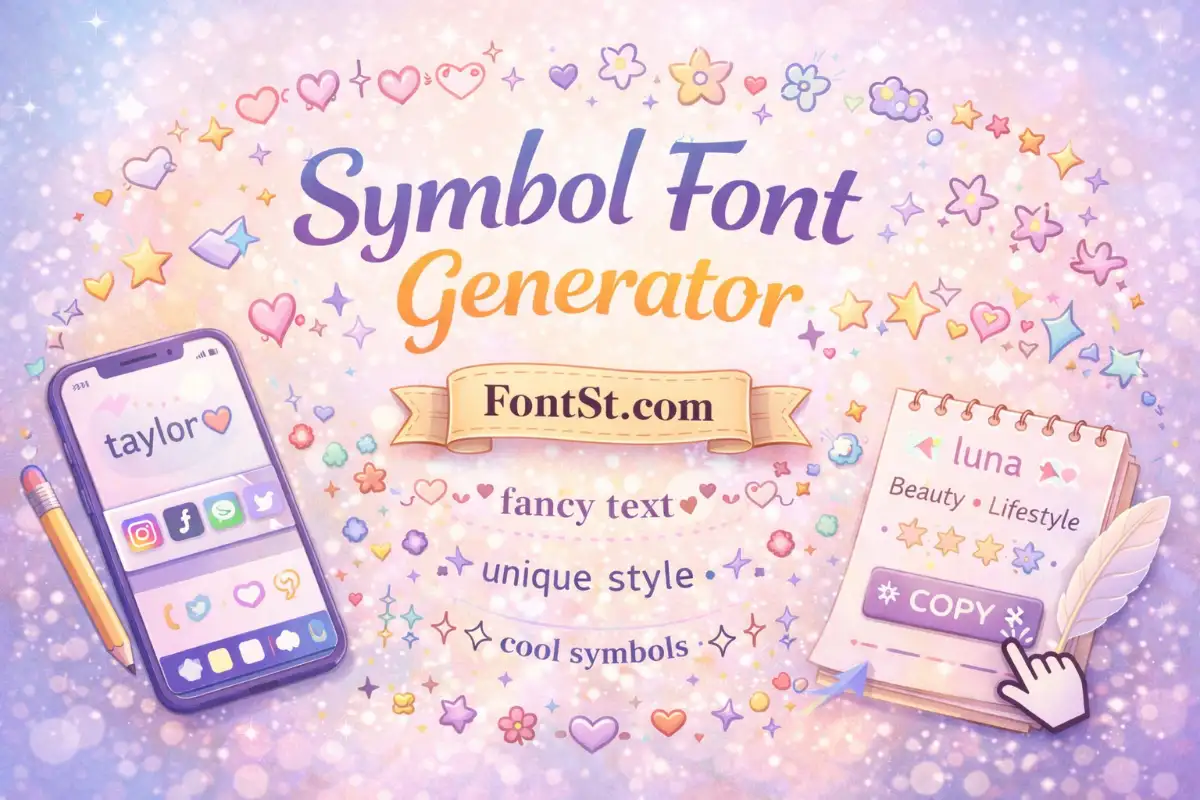
Symbols can turn plain text into something instantly more expressive—cute, aesthetic, or “cool” for bios, captions, usernames, and status lines. This Symbol Font Generator helps you create copy and paste fancy text using stylish Unicode symbols and pretty text styles that work across Instagram, Discord, WhatsApp, and Facebook.
✦ Symbol Font Generator ✦
Symbol Typeface: What It Means In Copy & Paste Text
In traditional typography, a symbol typeface can mean a font file that contains icon-like characters. In the copy & paste world, it usually means Unicode symbols and stylish letter variants that behave like “fonts” inside apps.
So when users search for a symbol typeface, they often want:
• cute and decorative symbols (stars, hearts, dots, frames),
• cool text symbols to separate ideas,
• a quick way to turn normal text into fancy writing to copy and paste.
Cute Font Symbol: The Fastest Way To Make Text Look Adorable
A cute font symbol is usually a small accent that frames your name or line—without making it unreadable.
Popular cute accents:
• Hearts:
• Sparkles:
• Soft vibes: 🫧
• Dividers:
Best practice: use 1–2 symbol types consistently. Cute looks “premium” when it’s clean.
Cool Text Symbols: The Ones People Actually Use
When people search cool text symbols, they usually mean symbols that feel:
• clean (for minimal profiles),
• edgy (for gamer/alt vibes),
• or aesthetic (for soft, modern bios).
Here are common “cool” symbol sets:
Minimal
• | +
Aesthetic
Edgy / Gamer
Framing
• 【 】 『 』 ⟦ ⟧
Copy And Paste Fancy Text: What Works Best On Social Apps
Fancy text should still be readable. The best approach is:
• one fancy line for the headline,
• normal text for the details,
• symbols only as accents.
Great places to use it:
• Instagram display name + bio line 1
• Discord nickname + status
• WhatsApp “About”
• Facebook intro line or post title
How To Use FontSt’s Symbol Text Generator
1. Type your phrase (name, short quote, title, status).
2. Browse symbol styles and pick one that matches your vibe (cute, minimal, edgy).
3. Tap to copy.
4. Paste into your app.
Quick Test Inputs
Use these to check if a style supports everything you need:
• yourname ✦
• ABC abc 123
• discord status •
• link in bio →
If the style breaks into squares (□), pick a simpler symbol set like or .
Fancy Writing To Copy And Paste (Without Looking Spammy)
If your goal is “fancy writing,” keep it short and structured:
• ✧ your name ✧
• • creator • editor •
• ☾ calm vibes ☾
Avoid stacking too many rare symbols in one line. One “frame” + one “divider” is usually enough.
Copy And Paste Pretty Fonts: A Simple “2-Line Bio” Formula
A reliable format for pretty profiles:
• Line 1 (pretty font + symbols): ✦ Name ✦
• Line 2 (plain text): niche + schedule + one emoji
Example:
• ✦ Luna ✦
• beauty • lifestyle • weekly posts ✨
This works across most platforms and doesn’t break readability.
Awesome Fonts Copy And Paste: Pick A Style Based On Your Goal
If you want “awesome fonts,” decide the purpose first:
• Clean + professional: light bold + minimal symbols
• Cute aesthetic: bubble/cursive + hearts/sparkles
• Gamer/edgy: sharp symbols + strong separators
• Minimal: small caps/tiny + dots
Symbol Aesthetic Font: Make It Look Cohesive
A “symbol aesthetic font” looks best when:
• the letters and symbols feel like the same “tone,”
• the spacing is consistent,
• you use a repeatable pattern.
Try these cohesive patterns:
• ✧ text ✧
• • text •
• — text —
• 【text】
Cool Text Symbols For Discord, Instagram, WhatsApp, FB
Different platforms have different “best uses”:
Discord
Messletters Symbol
• Messletters symbol usually refers to messy decorative text styles (sometimes glitchy). These can look fun, but they may break in usernames or older devices. Use them for bios/captions rather than handles.
Fonts For Icons
• Icon fonts are real font files (used in design/dev) that contain pictograms. Copy & paste symbol generators are different: they use Unicode characters that display in system fonts. If you need design-grade icons, you’ll want a dedicated icon set; if you need quick social symbols, copy/paste is faster.